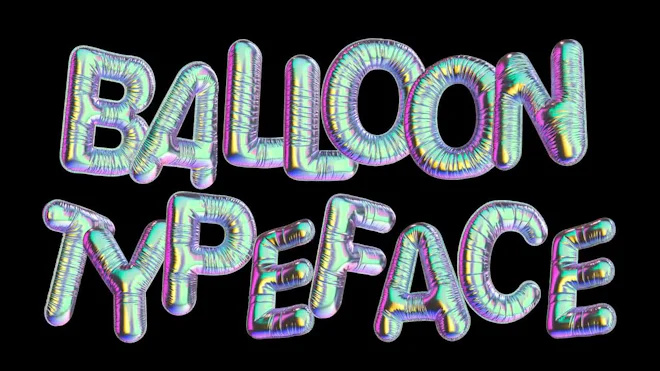
This stock motion graphics video pack includes 57 different clips of iridescent balloon letters, numbers, symbols and icons on a transparent alpha channel in a seamless loop.